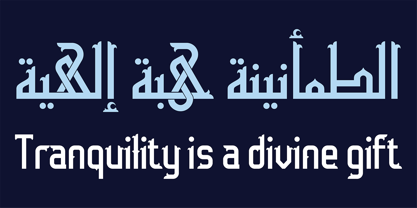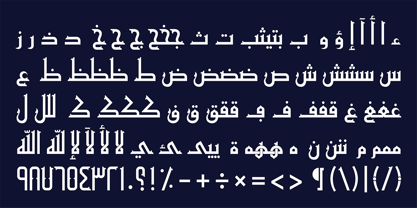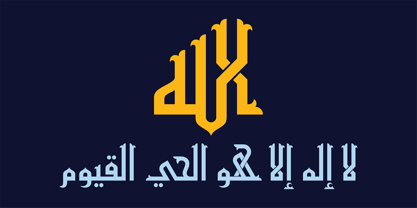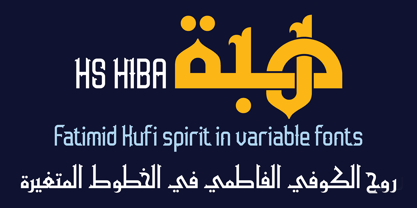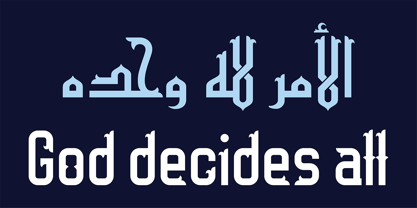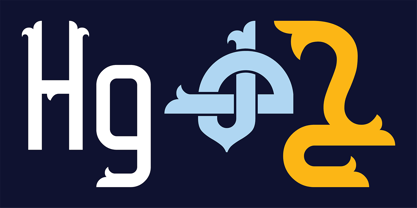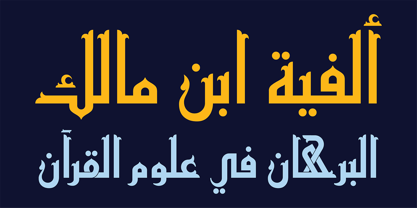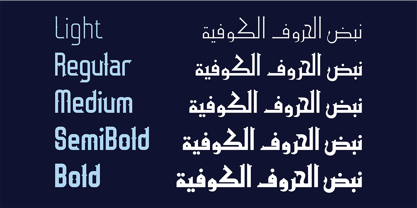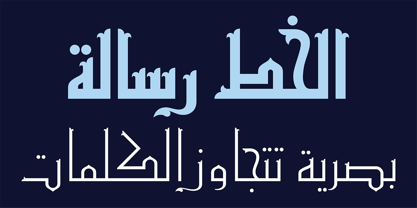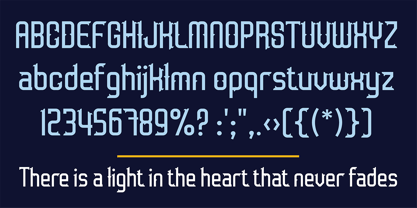
HS Hiba
The HS Hiba Font Family was designed by Hasan Abu Afash and published by Hiba Studio. HS Hiba contains 6 styles and family package options. More about this family
HS Hiba is a variable Arabic typeface that blends traditional Kufic aesthetics with geometric precision. Inspired by the principles of Fatimid Kufi, the design balances historical heritage with a contemporary typographic expression. The typeface was originally designed and released by Hasan Abu Afash in the early 2000s under the name Hasan Hiba. Since then, it has been completely rebuilt, refined, and expanded. The current release preserves the core spirit of the original design while introducing a more structured system, improved proportions, and a modernized typographic foundation. The original design received international recognition, winning 5th place in the Display category of a global type design competition organized by Linotype. The current release of HS Hiba is available in five static weights along with a Variable Font that unifies the family along a single weight axis, offering flexible and precise typographic control. HS Hiba supports both Arabic and Latin scripts and includes multiple stylistic sets (ss01–ss05), enabling designers to adapt the letterforms for a wide range of editorial, branding, architectural, and display applications.
HS Hiba